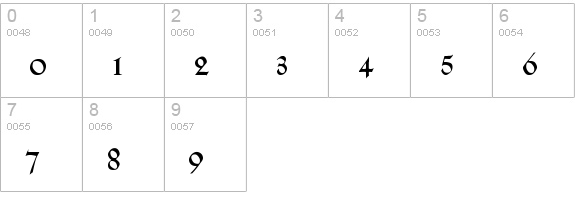
Lilith-Heavy is a heavy, high-impact variant in the Lilith typeface family \xE2\x80\x94 well suited to high-impact headlines, posters, and display advertising.
Lilith-Heavy font is a bold and powerful typeface that exudes sophistication and modernity. Its strong, thick lines and sharp edges make it perfect for creating impactful designs that demand attention. With its sleek and stylish appearance, Lilith-Heavy font is ideal for headlines, posters, logos, and any project that requires a touch of boldness. What's even better is that Lilith-Heavy font is completely free to download at FontsMarket.com. This means you can add this stunning font to your collection without having to spend a dime. Don't miss out on the opportunity to elevate your designs with the striking aesthetic of Lilith-Heavy font, available for free download now!